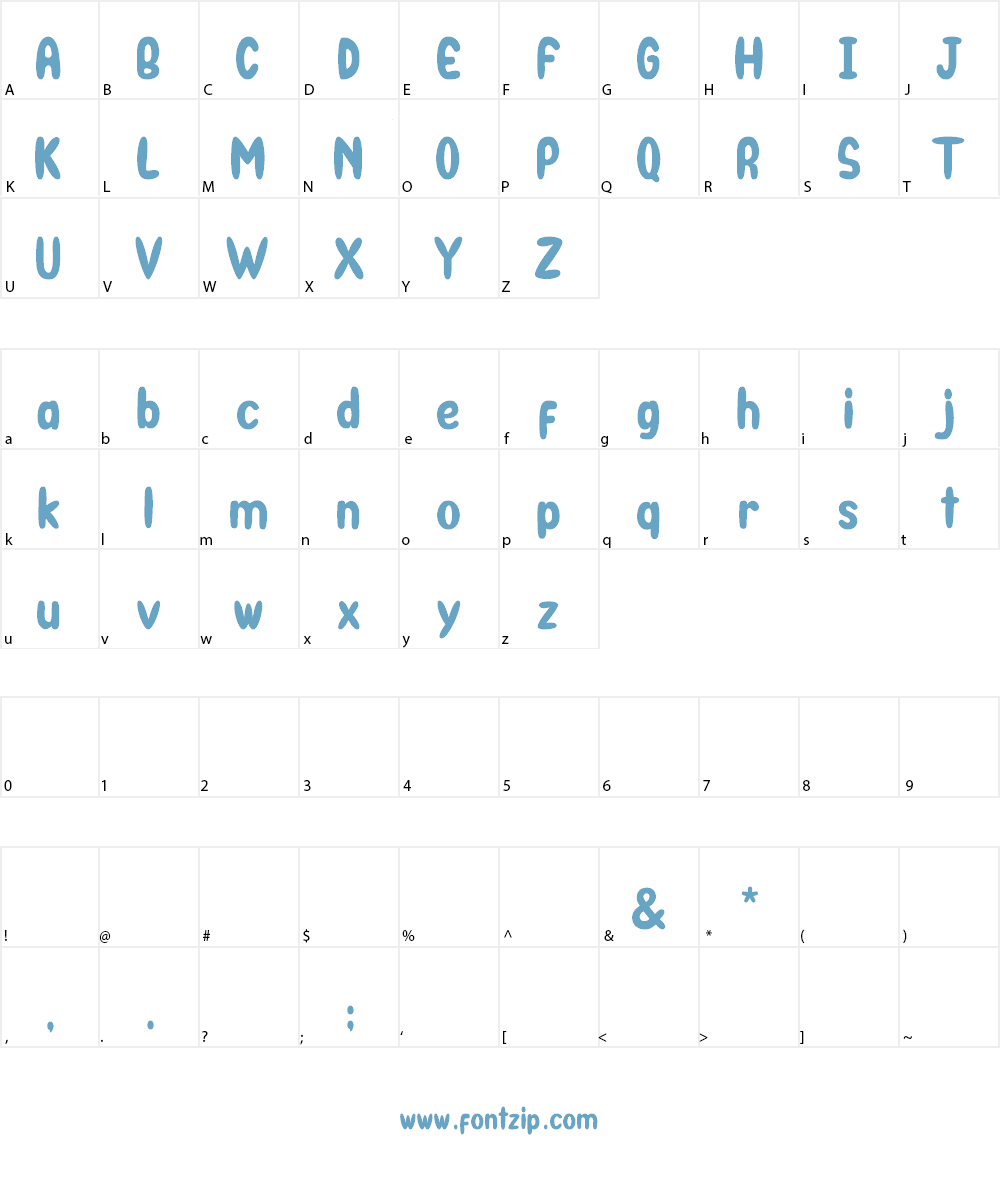
BooRush is a display font with a childish touch. The bold shape makes this font very suitable for Logo / Branding, T-Shirt, Book / Magazine Title, Quotes.